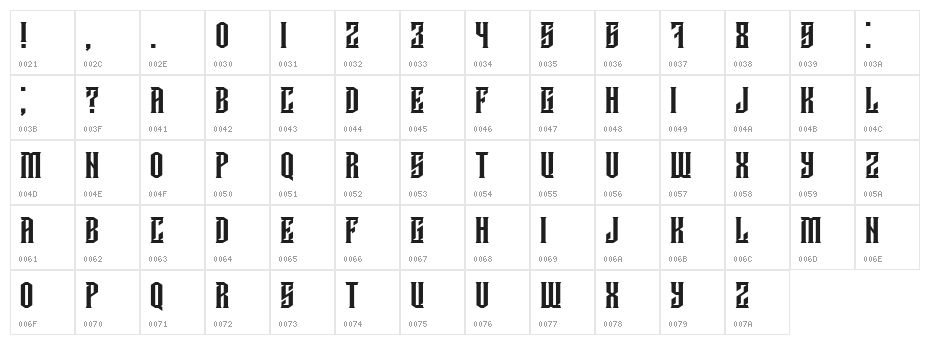
Damages Regular Font
Damages Regular Description
This font features a bold and striking design with sharp, angular lines and a strong presence. The characters exhibit a Gothic or Blackletter style, characterized by their intricate and decorative elements. The uppercase letters are particularly prominent, with a uniform height and width that create a cohesive and impactful look. The numbers and punctuation marks maintain the same stylistic elements, ensuring consistency across all characters. This font is ideal for projects that require a dramatic and eye-catching typeface.
| Proposed Projects | Ideal for branding, posters, album covers, and any project needing a dramatic and impactful typeface. |